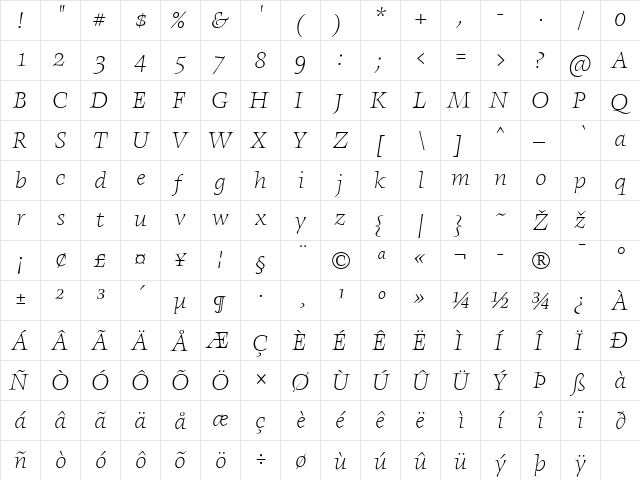
Angkoon-LightItalic Regular Font Preview
| Foundry | Xavier Dupre, published by FontShop International for the FontFont Library |
| Designer | Xavier Dupre |
Design Context for Angkoon-LightItalic Typeface
Angkoon-LightItalic takes a measured approach to typography — its balanced proportions and neutral character make it a reliable workhorse for both digital and print work. Its italic angle brings a sense of urgency and motion to the letterforms. Its slender proportions lend an understated elegance to any composition.